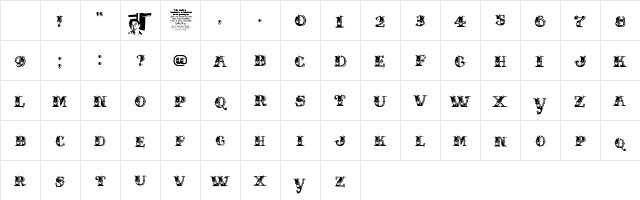
Complete CHASE ZEN HOLY MONKEY NUTS Regular glyph index. Displaying only characters natively supported by CHASE ZEN HOLY MONKEY NUTS Regular font.
CHASE ZEN HOLY MONKEY NUTS is a composed and adaptable typeface that performs quietly and consistently across a wide range of design contexts.